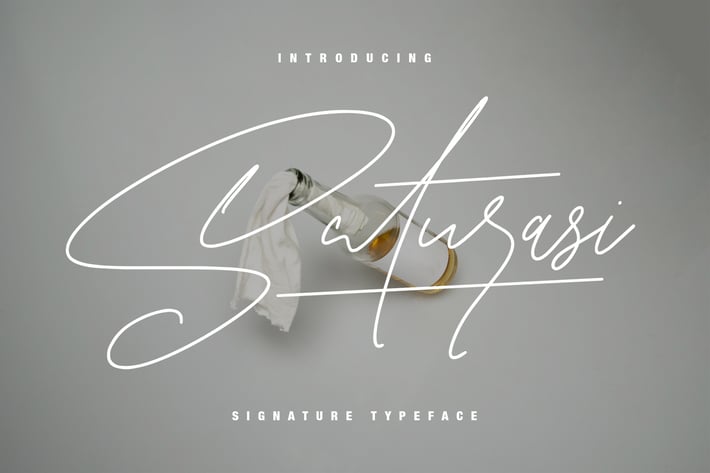
Saturasi Signature Typeface
Give your designs an authentic handcrafted feel. "Saturasi" is perfectly suited to signature, stationery, logo, typography quotes, magazine or book cover, website header, clothing, branding, packaging design and more. Included Alternates.